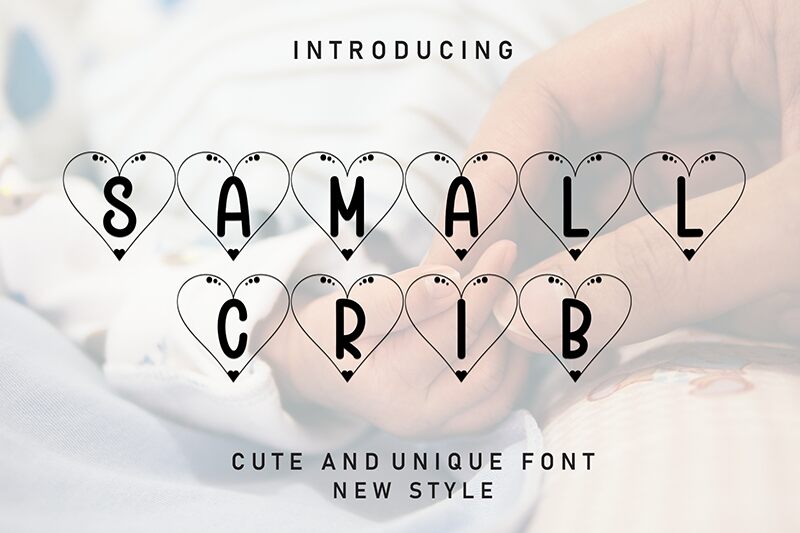
Samall Crib
Samall Crib font by Andi Moz is a decorative typeface infused with valentine style, offering a whimsical and charming appearance. Its heart-shaped elements and artistic flair make it perfectly suited for playful and romantic contexts, with a modern design influence.